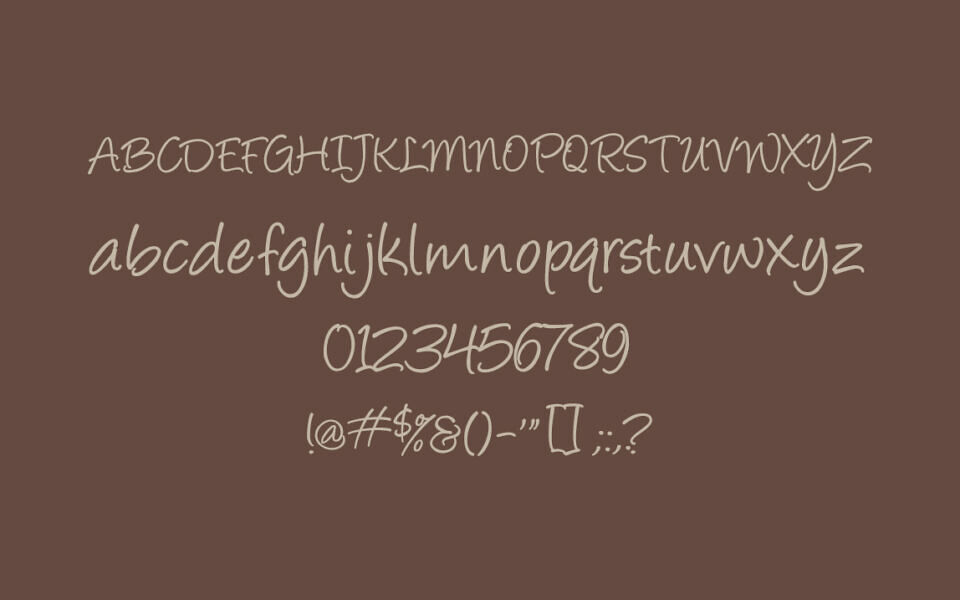
Angelina Font, crafted by Angie Durbin, is a charming handwritten typeface that radiates warmth and personality. Its fluid, organic strokes and playful letterforms evoke a sense of authenticity, making it perfect for invitations, greeting cards, and branding projects.
Angelina font brings a heartfelt, artisanal touch to designs, capturing the essence of hand-lettered artistry with a modern, versatile appeal for creative applications.